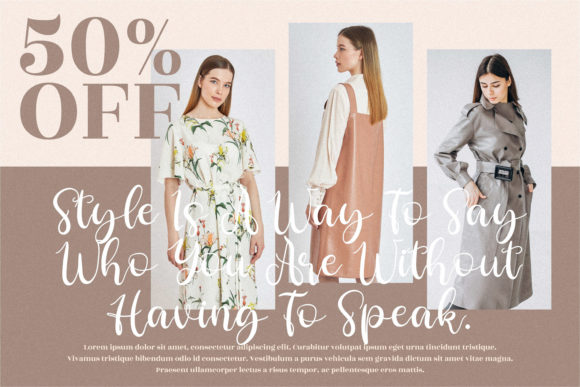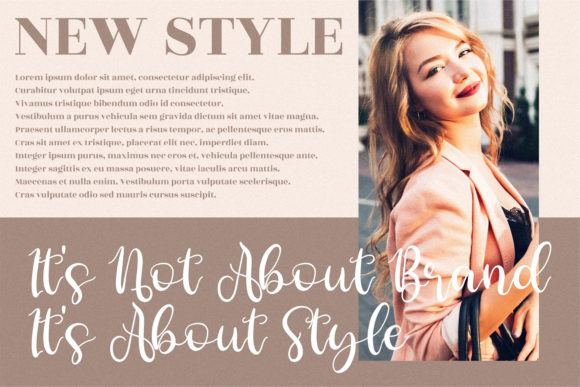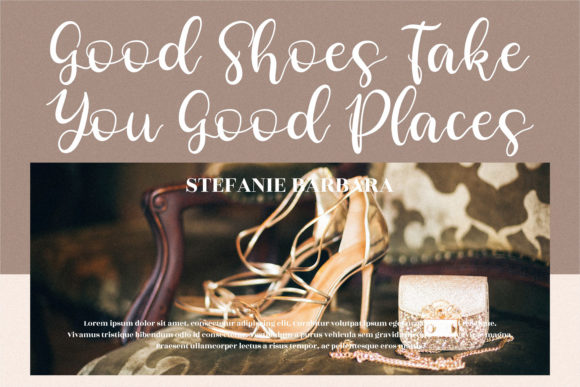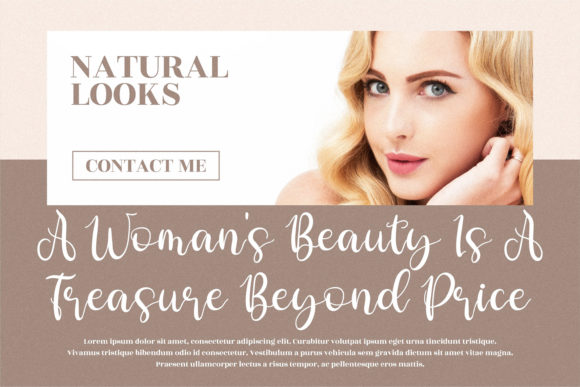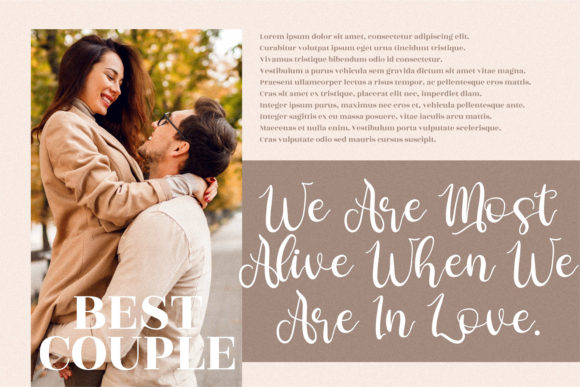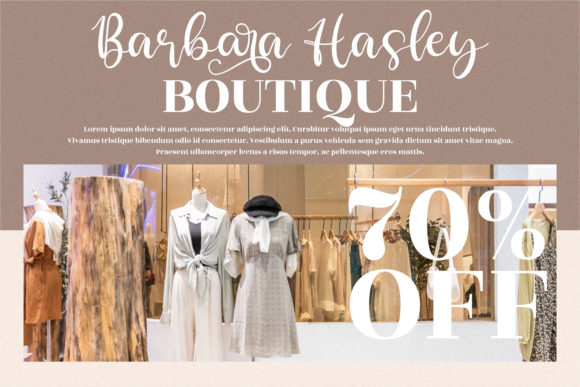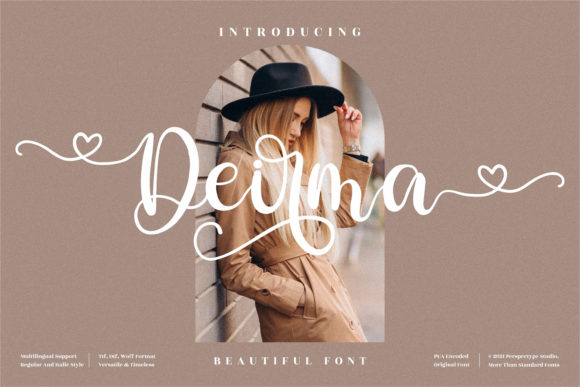
Introducing Deirma Font: The Ultimate Luxury Calligraphy Typeface
Are you looking for a font that adds a touch of romance and sweetness to your design projects? Look no further than Deirma Font, a stunning calligraphy typeface that is sure to elevate your designs to the next level. With its unique and elegant characters that dance along the baseline, Deirma Font is the perfect choice for designers and crafters who want to add a luxury spark to their work.
What Makes Deirma Font So Special?
Deirma Font is a romantic and sweet calligraphy typeface that is designed to make your designs stand out. Its characters are carefully crafted to dance along the baseline, creating a sense of movement and fluidity that is sure to capture the attention of your audience. Whether you’re working on a branding project, a wedding invitation, or a packaging design, Deirma Font is the perfect choice for adding a touch of elegance and sophistication.
One of the best things about Deirma Font is that it is PUA (Private Use Area) encoded, which means that you can access all of the amazing glyphs and ligatures with ease. This makes it easy to customize your designs and add your own personal touch. With PUA encoding, you can easily access the font’s extensive character set, including swashes, ligatures, and alternates, to create unique and eye-catching designs.
Deirma Font is perfect for designers and crafters who want to add a touch of luxury to their work. Whether you’re working on a commercial project or a personal craft project, this font is sure to impress. Its elegant and sophisticated design makes it perfect for a wide range of applications, including:
- Signage and display design
- Crafting and scrapbooking
- Digital design and social media graphics
Key Features of Deirma Font
Here are some of the key features that make Deirma Font so special:
- Romantic and sweet calligraphy typeface
- Characters that dance along the baseline
- Extensive character set, including swashes, ligatures, and alternates
- Perfect for designers and crafters
- Luxury and elegant design
In conclusion, Deirma Font is a stunning calligraphy typeface that is sure to add a touch of luxury and elegance to any design project. With its unique and elegant characters, PUA encoding, and extensive character set, this font is perfect for designers and crafters who want to create beautiful and eye-catching designs. Whether you’re working on a commercial project or a personal craft project, Deirma Font is the perfect choice for adding a touch of romance and sweetness to your work.